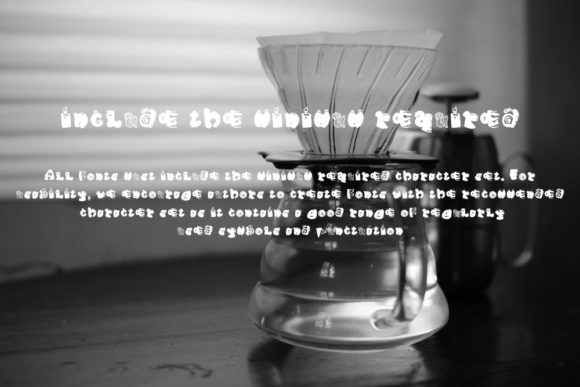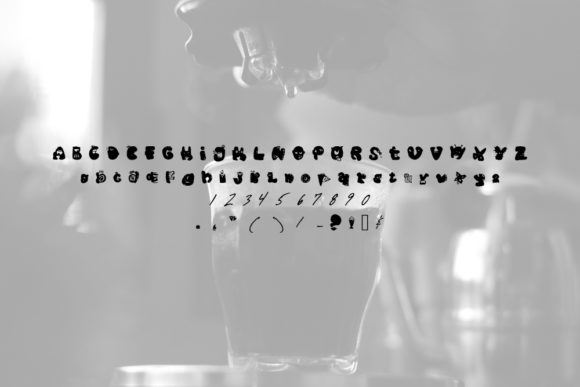
Introduction to Remidial Monster Font
Have you ever found yourself staring at a blank canvas, struggling to bring your creative project to life? The cursor blinks tauntingly, refusing to budge, as your mind races with ideas but your hands seem frozen. It’s a familiar feeling for many designers, but what if you had the perfect tool to break through that creative block?
Enter the Remidial Monster Font, a game-changing dingbats font that’s sure to inject some excitement into your next design project. With its unique and quirky aesthetic, this font is the perfect addition to any design resource, offering endless possibilities for creative expression.
Whether you’re working on a high-quality brochure, designing a website with a transparent background, or simply looking for a fun way to add some personality to your social media graphics, the Remidial Monster Font is an invaluable asset. And the best part? It’s available for free download, making it a must-have for designers of all levels.
Key Features of Remidial Monster Font
- High-quality design resource perfect for creative projects, offering a unique and playful twist.
- Features a transparent background, allowing for easy integration into various design elements.
- Unique characteristics include bold, playful lettering and a mix of digital and hand-drawn elements, adding a touch of personality to any design.
- Designed to be highly customizable, allowing users to easily adjust the font to fit their specific design needs.
Honest Review: Remidial Monster Font
I recently came across the Remidial Monster Font and was excited to dive in and see what it had to offer. As a designer, I’m always on the lookout for new and high-quality design resources to enhance my creative projects.
The Remidial Monster Font is a free download, which is a major plus in my book. It’s also a high-quality font that’s perfect for anyone looking to add a unique touch to their design.
- High-quality design: The font is well-designed and looks great on both light and dark backgrounds.
- Unique style: The Remidial Monster Font has a distinct style that’s perfect for adding some personality to your design.
- Transparent background: This makes it easy to use the font on any background without worrying about it getting lost.
- Limited character set: The font only includes a limited character set, which may be a problem for designers who need to use it for longer texts.
- No bold or italic styles: The font only comes in a regular style, which may limit its versatility.
Overall, I was impressed with the Remidial Monster Font and think it’s a great addition to any designer’s toolkit. While it has some limitations, it’s a high-quality font that’s perfect for adding a unique touch to your creative projects.
Tips for Getting the Most Out of Remidial Monster Font
Some tips for getting the most out of Remidial Monster Font include using it in combination with other design elements, experimenting with different font sizes and colors, and using a transparent background to create a unique and eye-catching design.
Common Use Cases for Remidial Monster Font
Remidial Monster Font is commonly used in creative projects, such as posters, flyers, and business cards. It is also a great resource for designers who want to add a unique touch to their designs. With its high-quality design and free download, Remidial Monster Font is a must-have design resource for any designer.
Is the Remidial Monster Font suitable for high-resolution designs?
Yes, the Remidial Monster Font is designed to be high-quality and suitable for high-resolution designs. It’s perfect for creating stunning visuals for your creative project, whether it’s a logo, poster, or social media graphic. With its crisp and clear typography, you can ensure that your design looks great on any device or screen resolution.